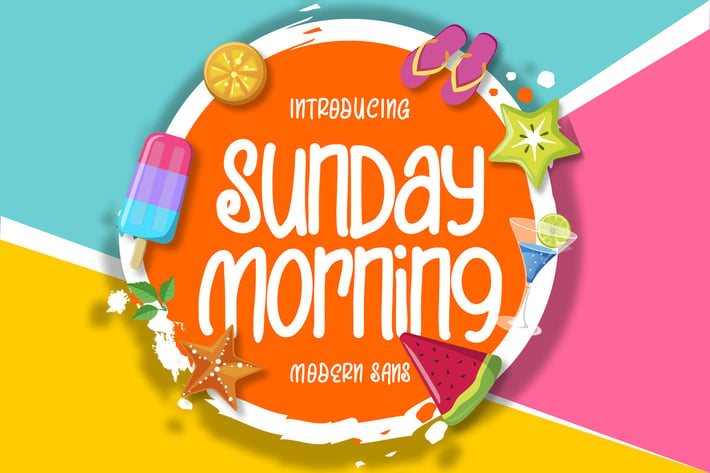
Sunday Morning | Modern Sans Font
Sunday Morning | Modern Sans Font with a calligraphy style, So beautiful on invitation like greeting cards, branding materials, business cards, quotes, posters, and more!